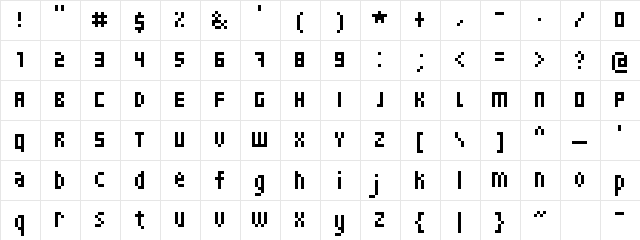
Skinny Regular
Design Context for Skinny Typeface
Skinny offers clean, dependable letterforms without strong stylistic allegiance, making it a practical choice for designers who need flexibility.
Pro Tip: Pair Skinny with a font of contrasting weight or personality to build a more expressive typographic hierarchy.